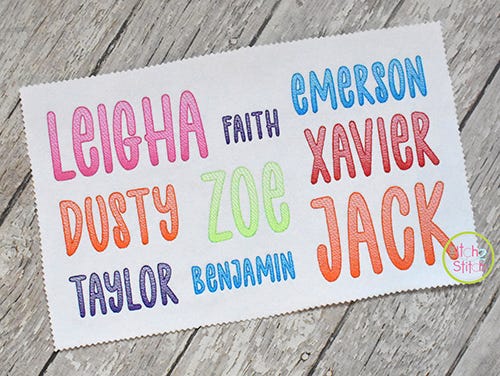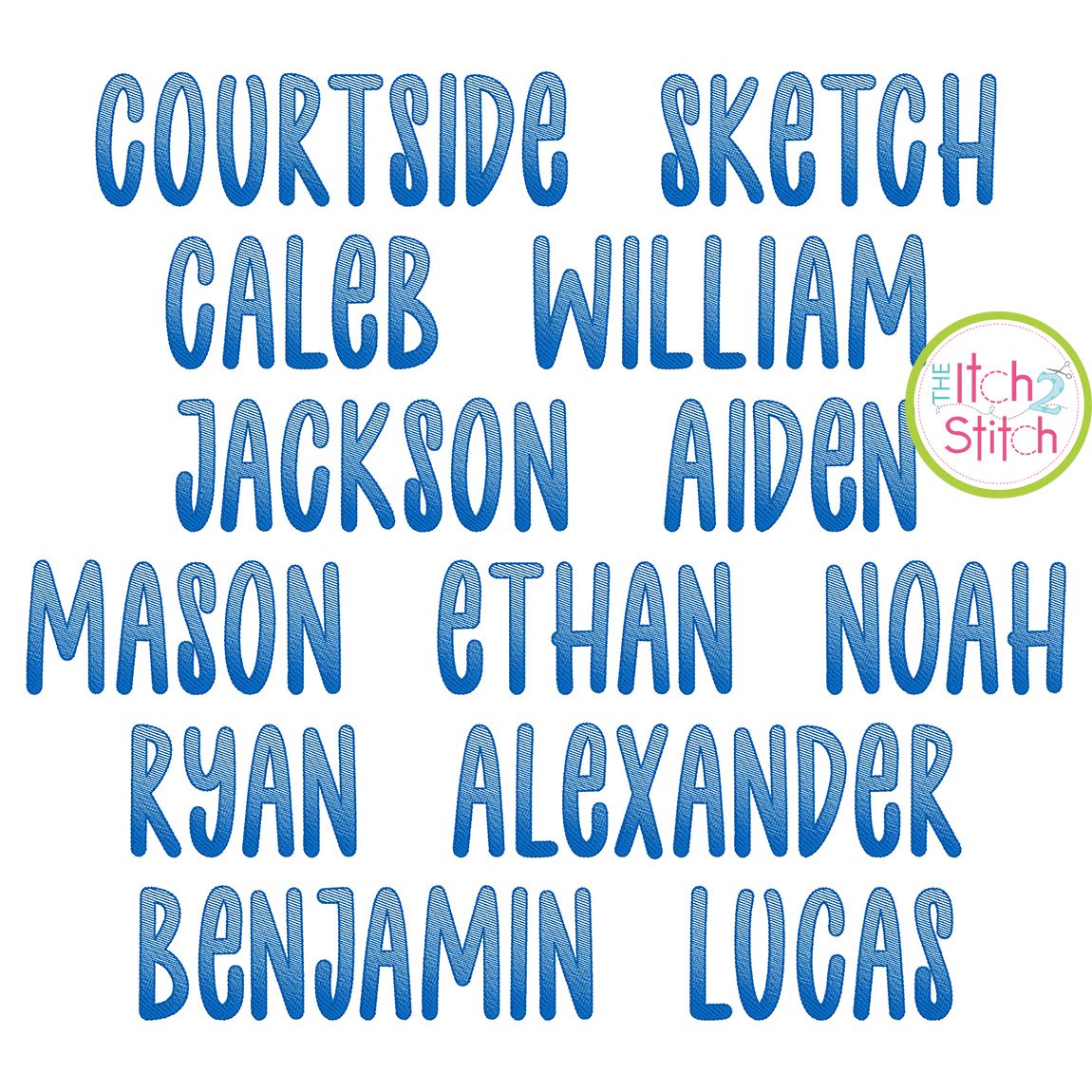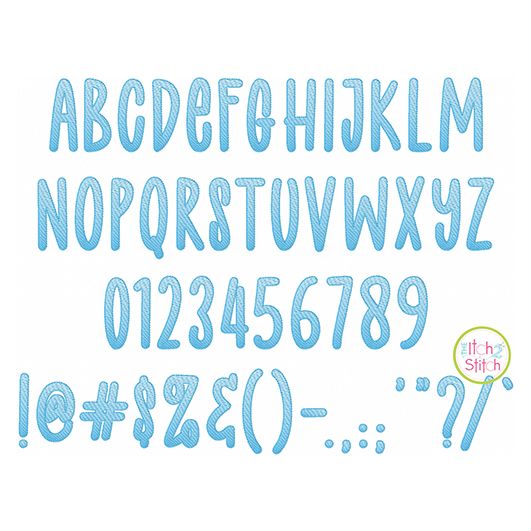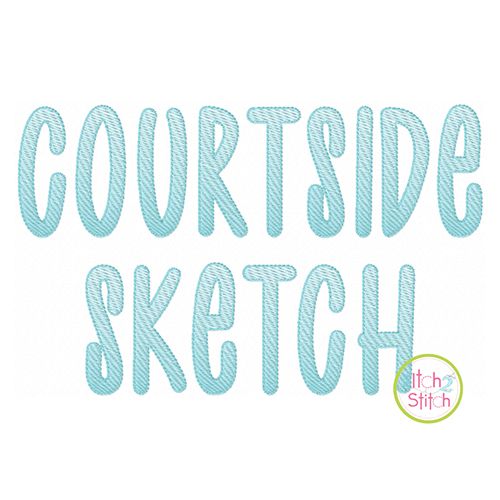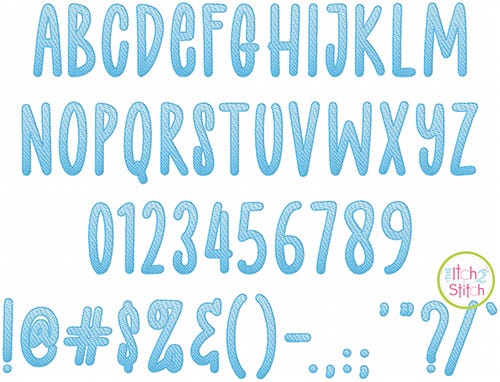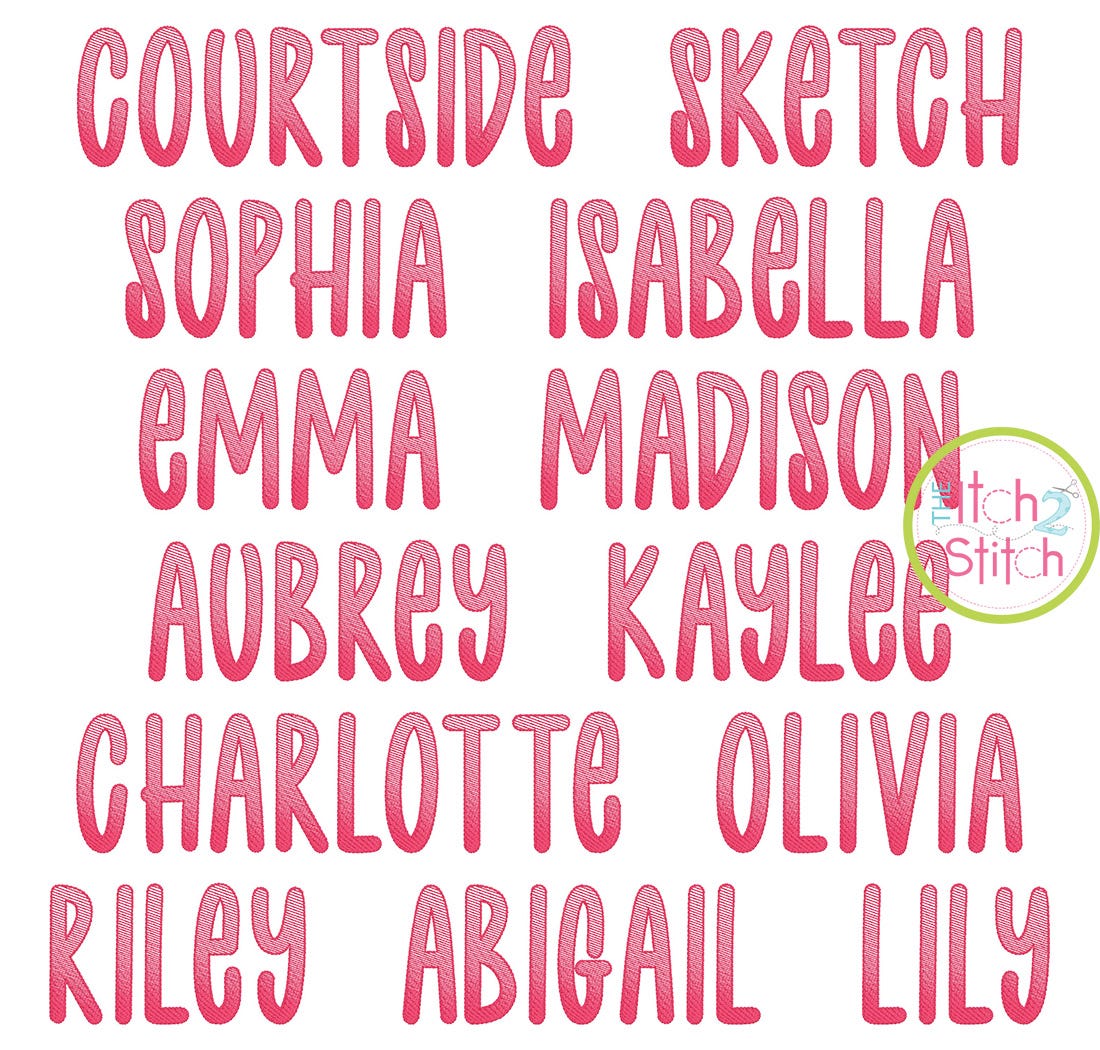
Courtside Sketch Embroidery Font
You will receive all A-Z letters, numbers and partial punctuation (54 files) in thirteen sizes. Please note this is a "unicase" font. There is only one design file for each letter of the alphabet. It is a mix of traditional capital and lowercase letters, as pictured. All letters/numbers in the 1" through 3.5" sizes fit in a 4x4 hoop. All letters/numbers in the 4" through 7" sizes fit in a 5x7 hoop (except for the 6.5" and 7" Q).
Please note this is not applique, nor is it a traditional satin or fill stitch font. The light and airy "sketch" fill pattern allows for a quick stitch out. The space between each line of stitching varies such that it is more dense at the bottom than the top of each letter to create the shading effect. The letter is finished off with a triple bean stitch outline. We do not recommend resizing this font in software. Small satin stitch sizes are sold separately.